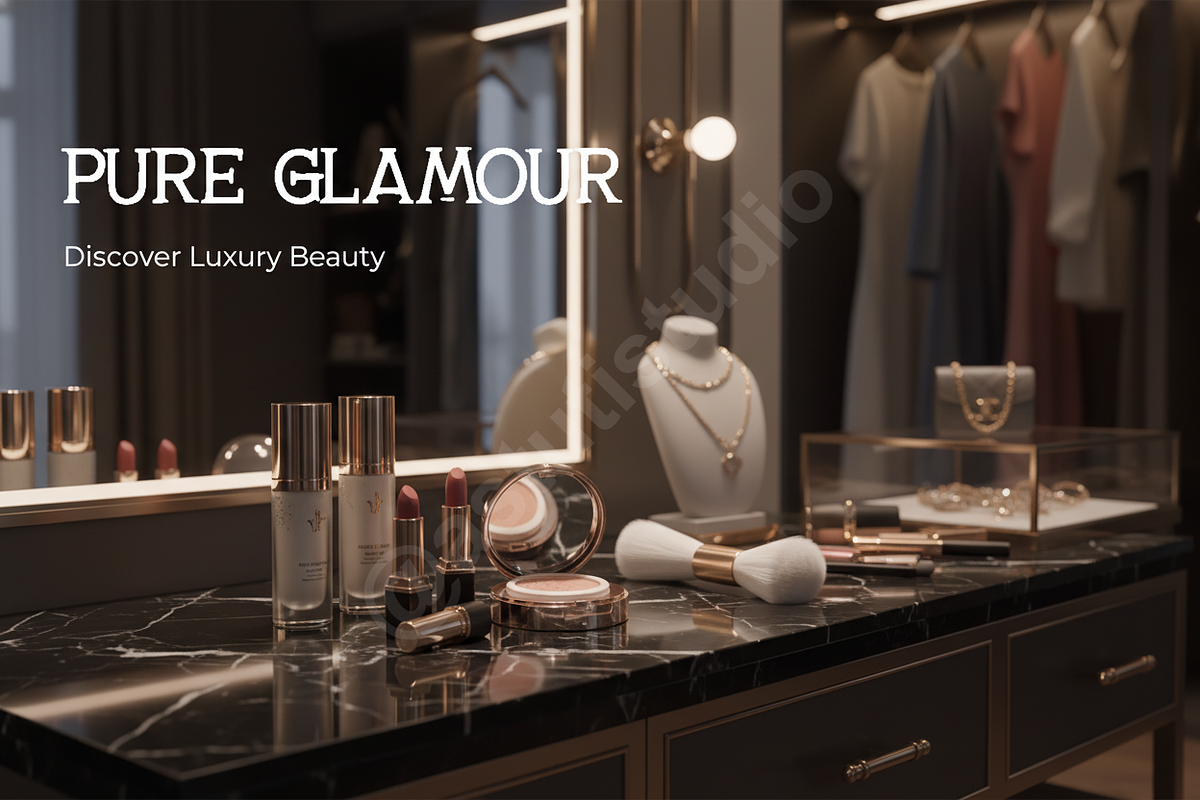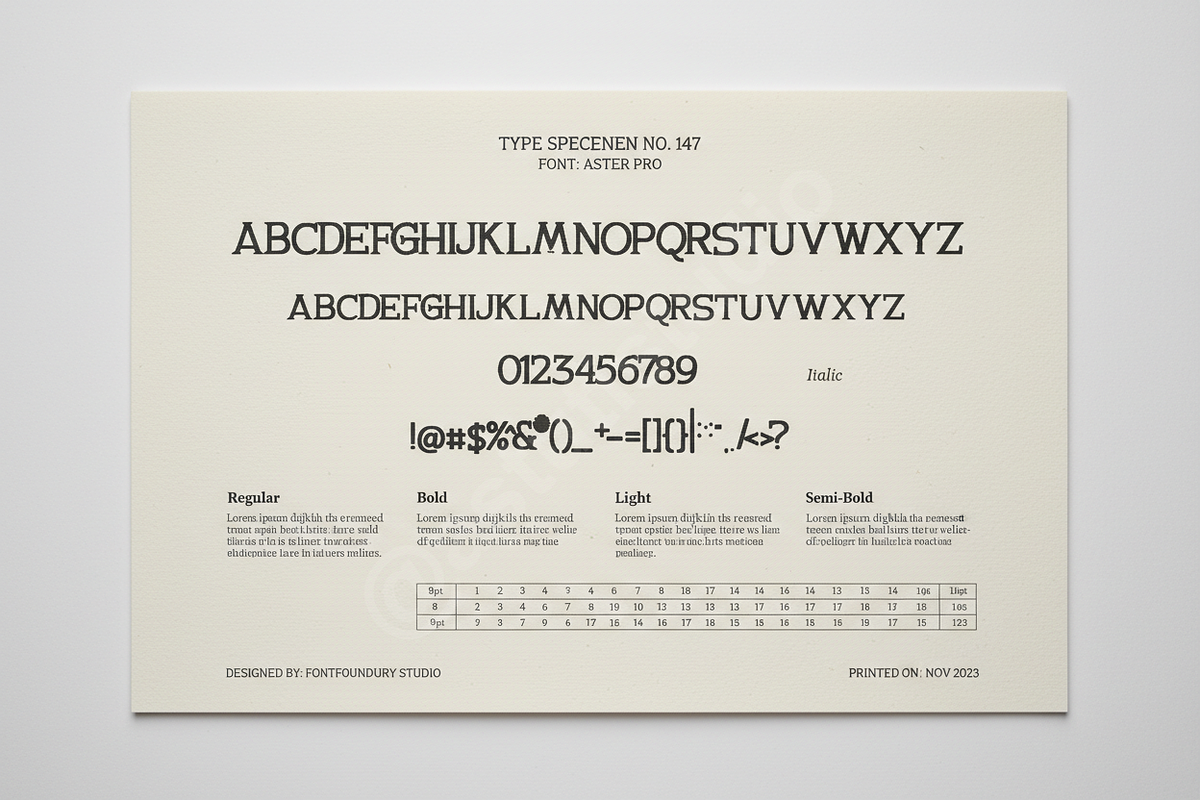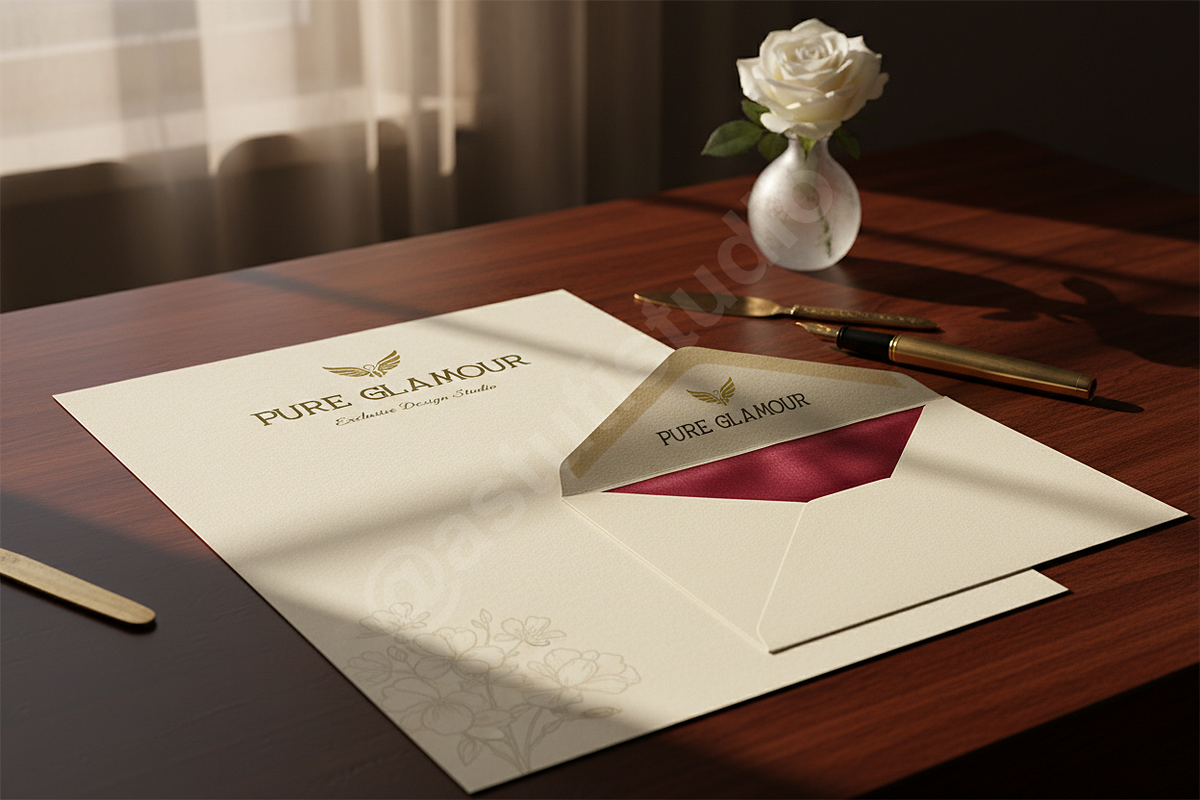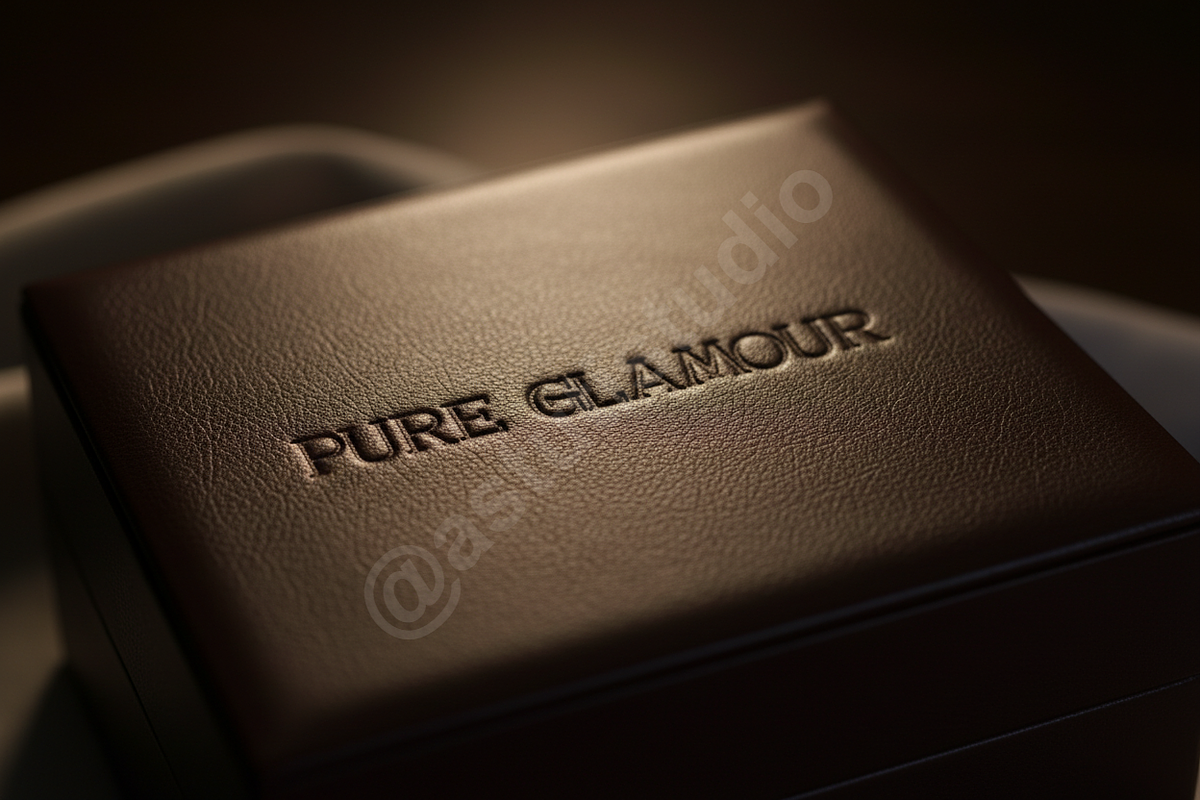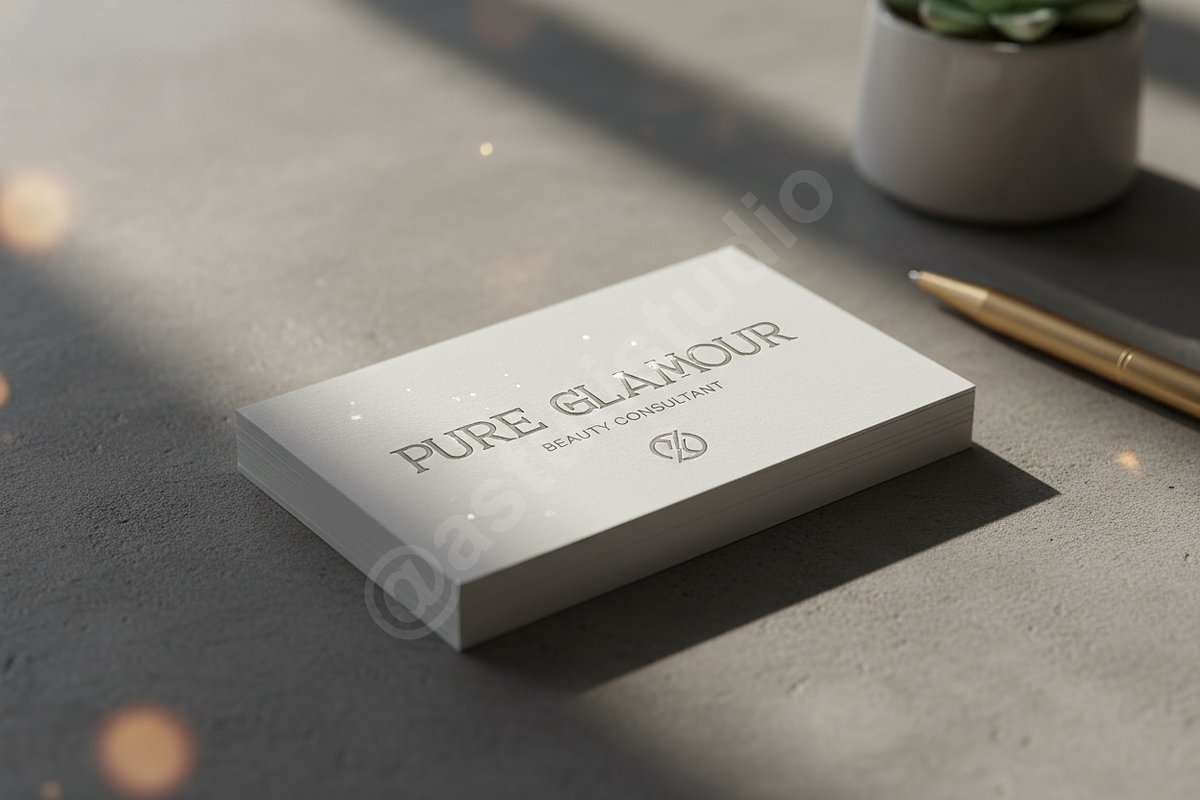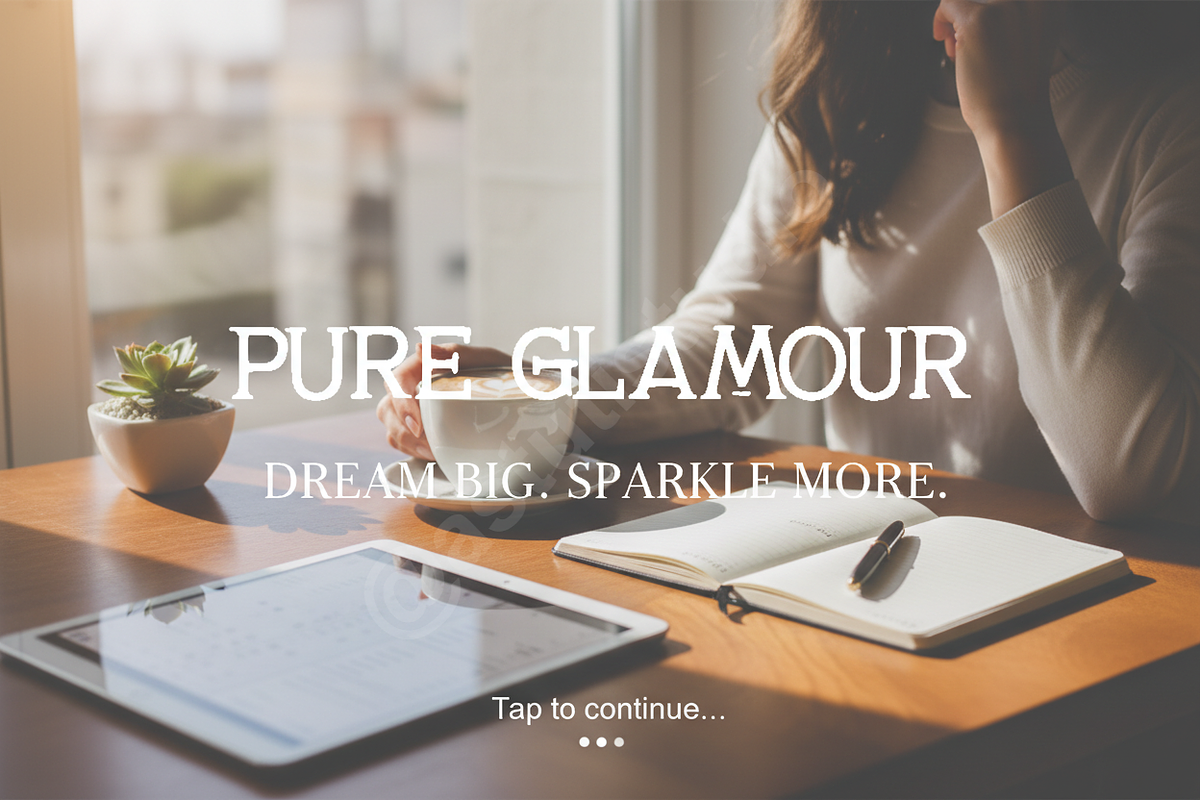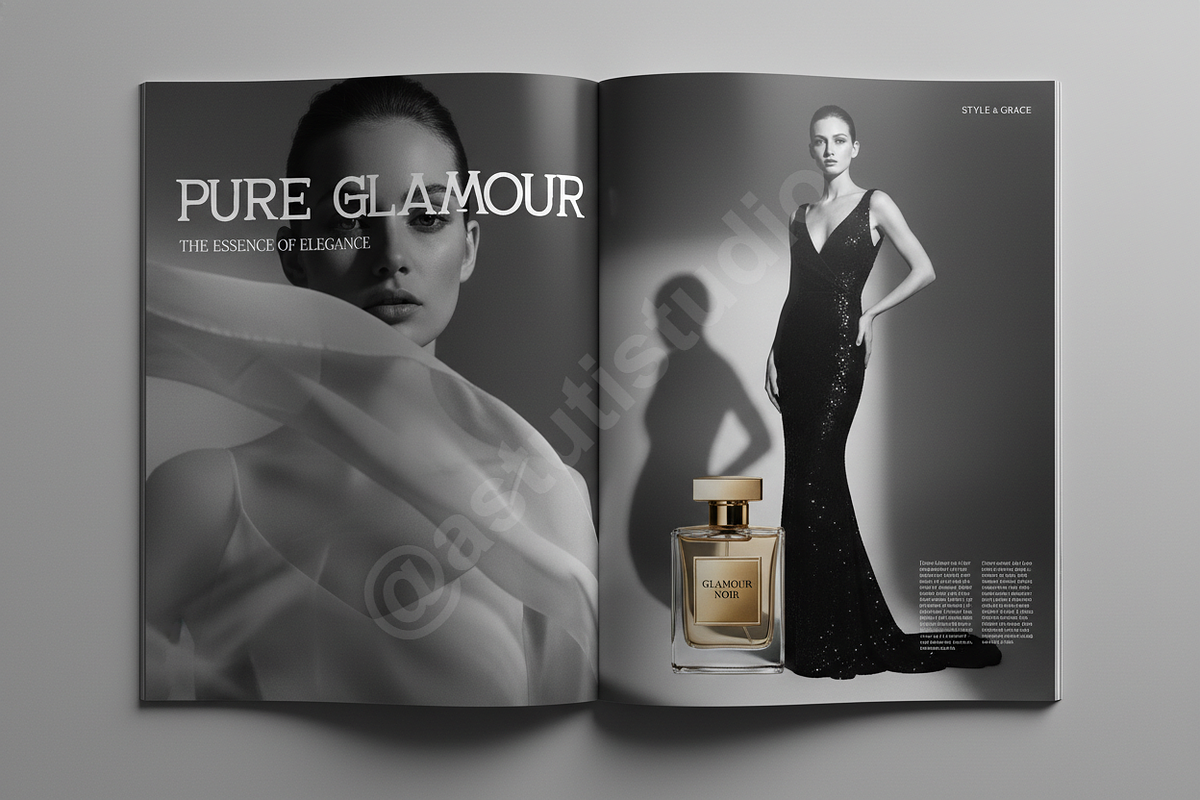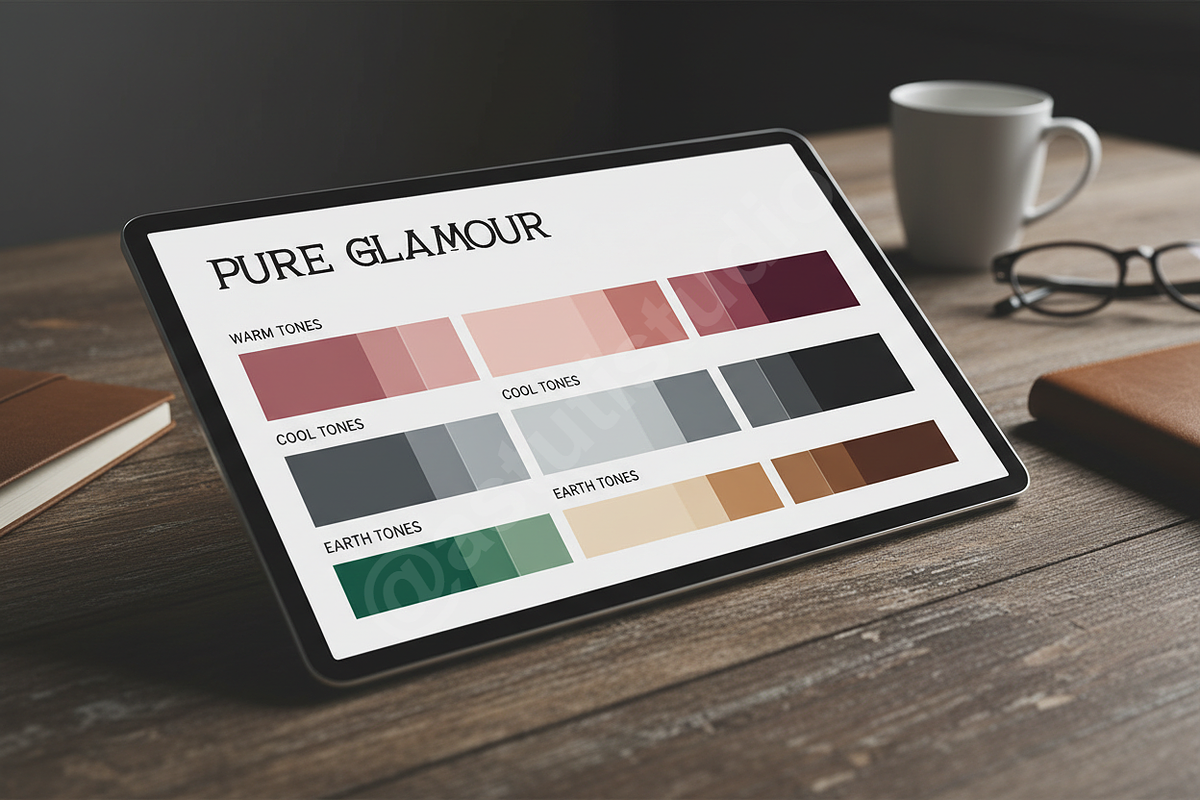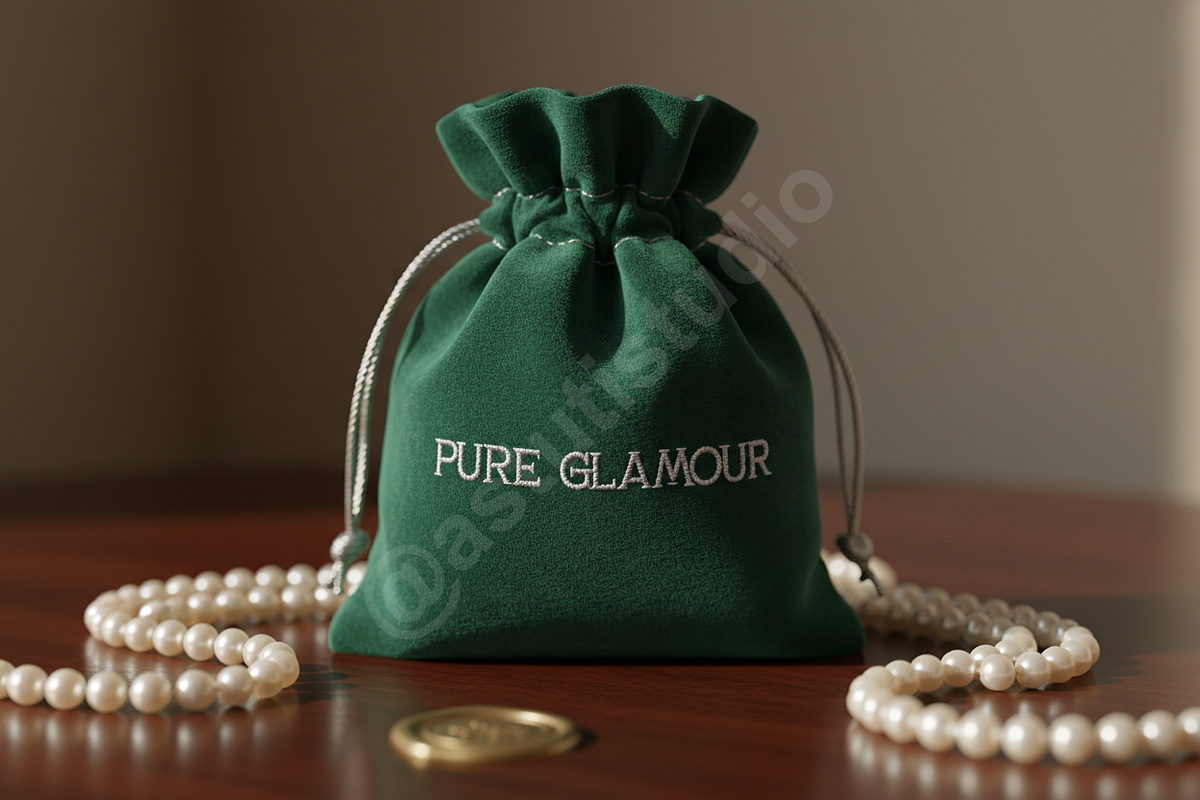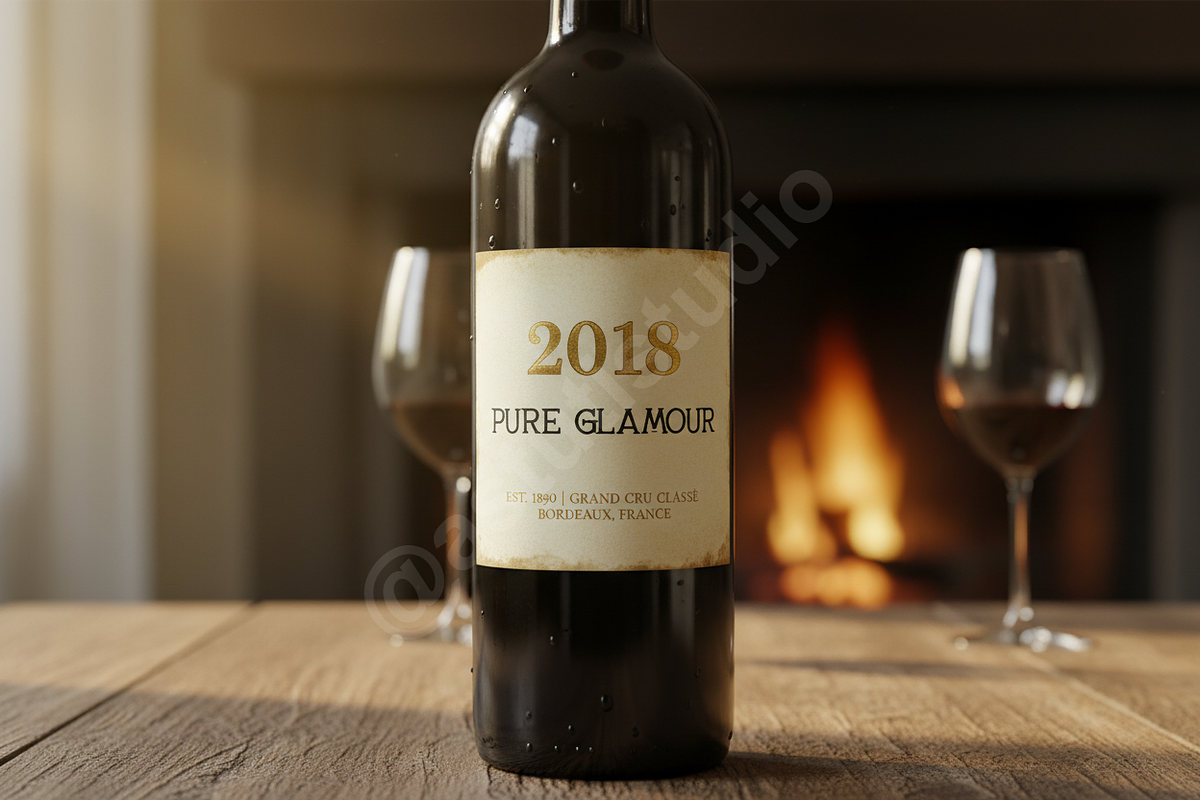
Nale | A Sophisticated Serif for Lux
INTRODUCTION Nale is a premium serif typeface meticulously crafted for high-end aesthetics and timeless elegance. Drawing inspiration from modern editorial design, Nale balances sharp terminals with graceful curves to create a look that is both authoritative and inviting. It is an ideal choice for luxury branding, sophisticated editorial layouts, and high-impact social media content.
- Refined serif construction with high contrast
- Elegant ligatures and stylistic alternates
- Full multilingual character support
- Optimised kerning for professional typesetting
- Versatile performance in both display and body text